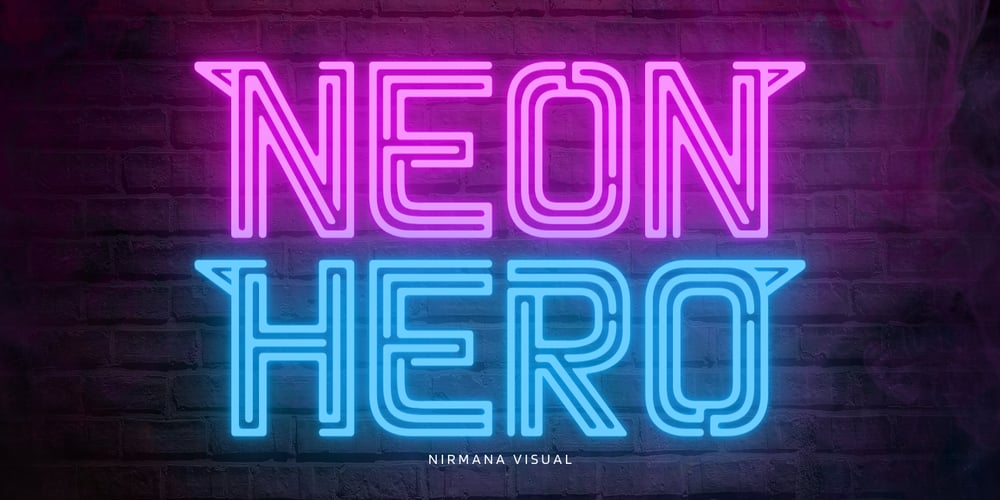
Neon Hero Font Family was designed by Sigit Dwipa and published by Nirmana Visual. Neon Hero contains 1 styles and family package options. Neon Hero is a vibrant and dynamic font style that captures the essence of the 1980s, reminiscent of the iconic neon billboards that lit up the nights in bustling cities. This font features bold, glowing letters with a sleek, tubular design, evoking a sense of nostalgia and retro-futurism. Each character is meticulously crafted to emulate the flickering and buzzing of real neon lights, creating a captivating and electrifying visual experience. Perfect for adding a touch of vintage charm and eye-catching brilliance to any project, Neon Nights brings the dazzling allure of the 80s back to life in a modern, stylish way.